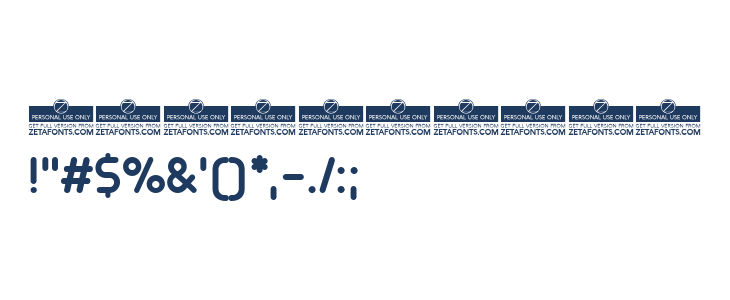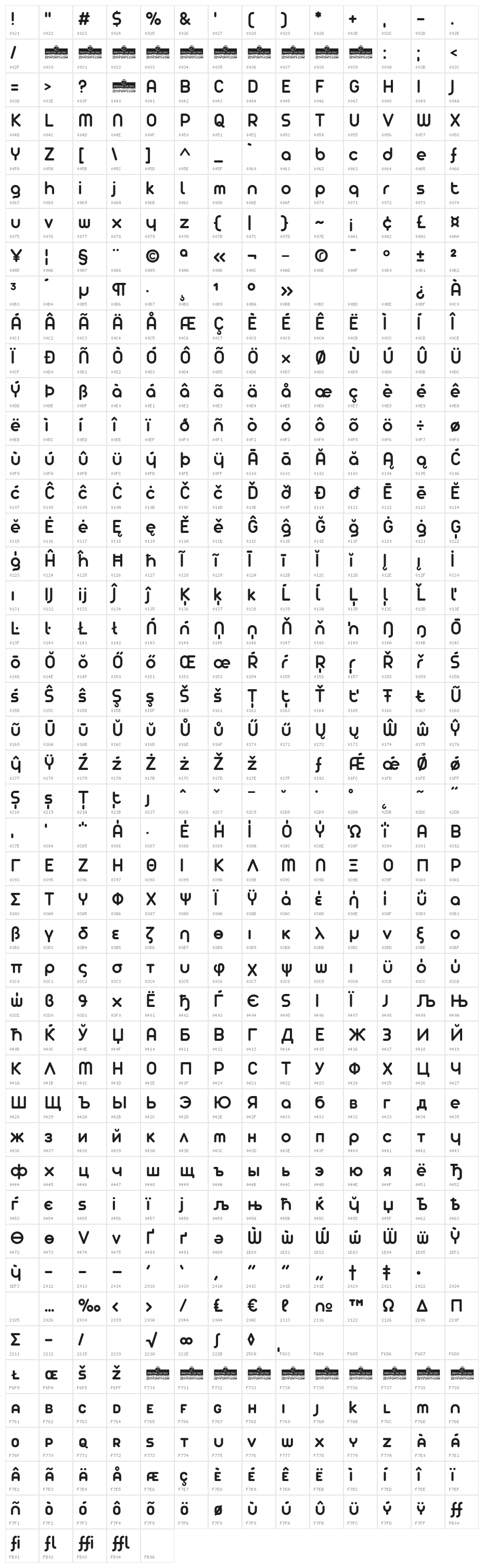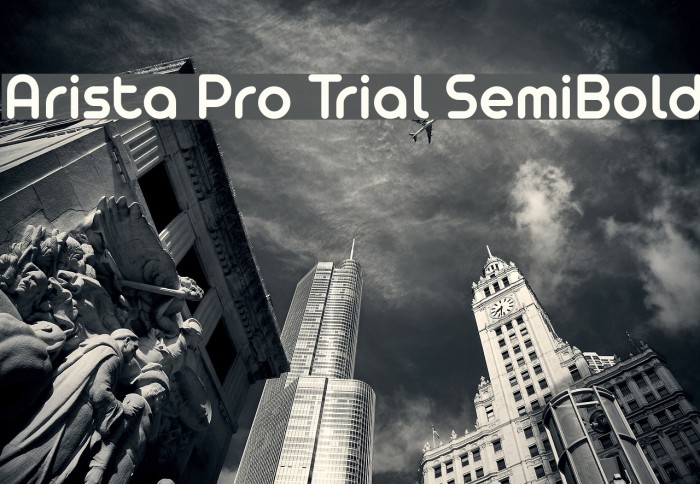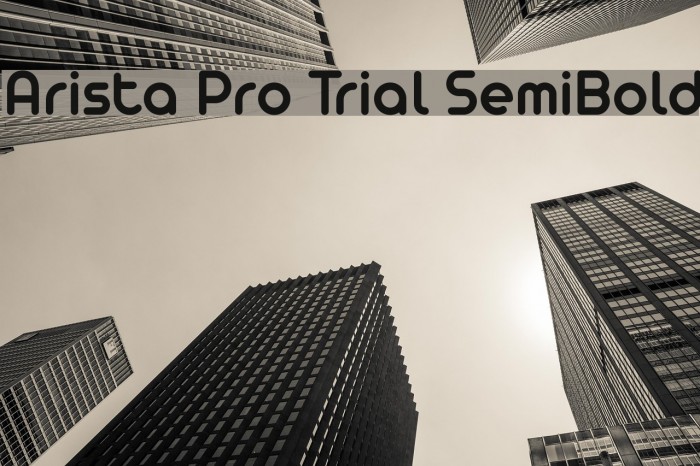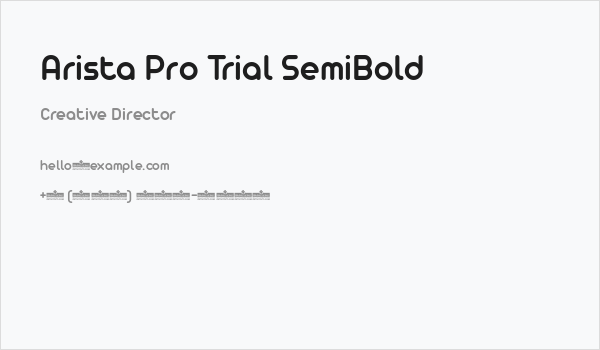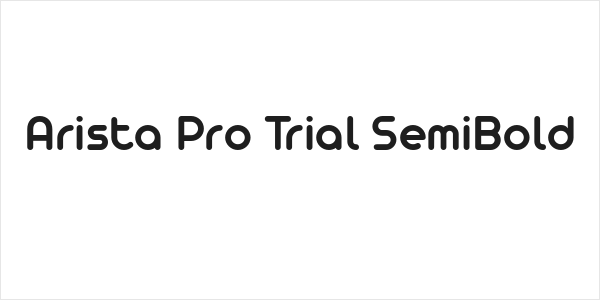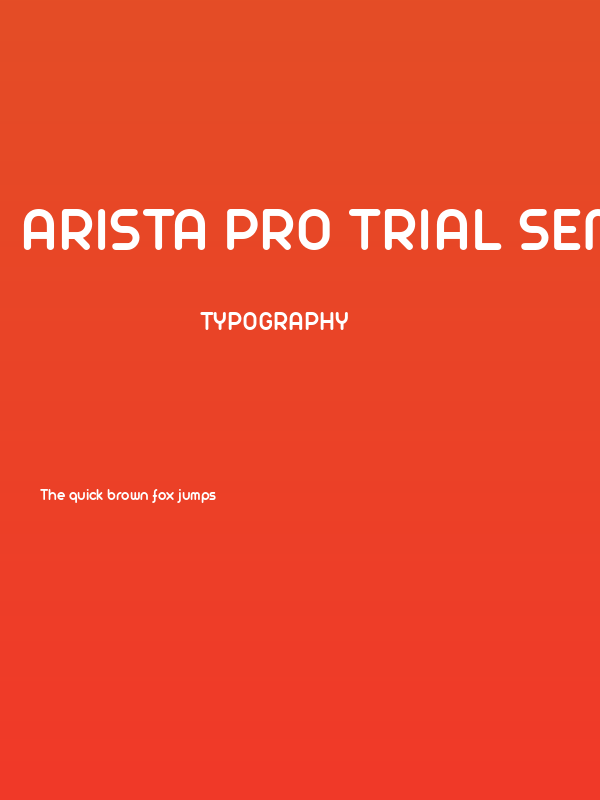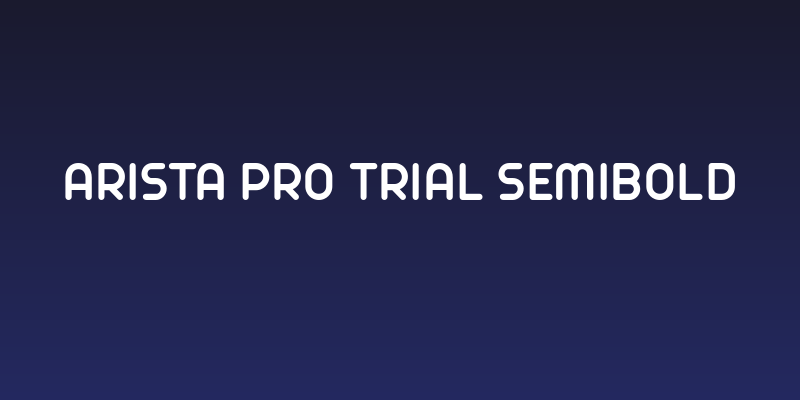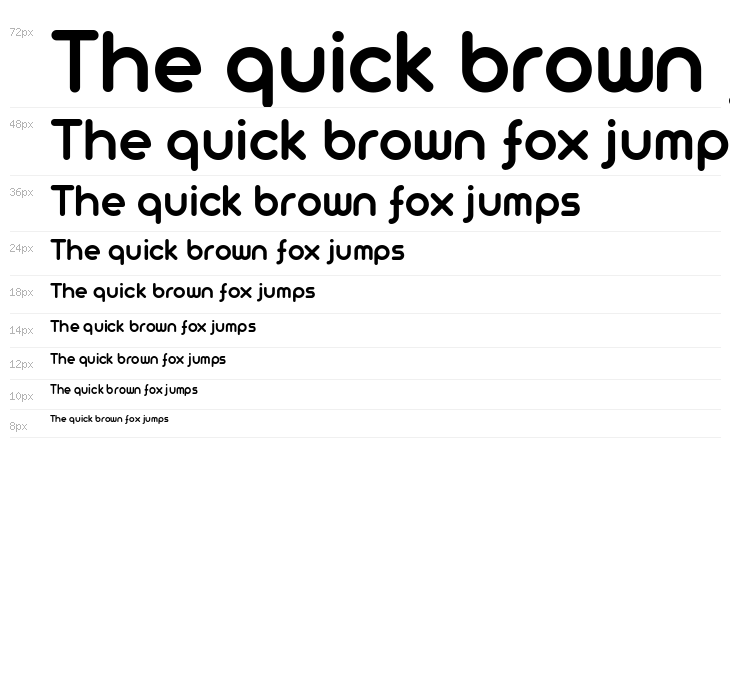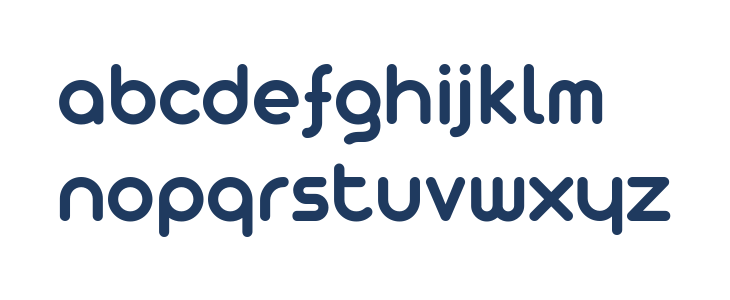
Arista Pro Trial SemiBold Font
Arista Pro Trial SemiBold Description
This font features a clean, rounded sans-serif style with a modern and friendly appearance. The characters are bold and uniform, with consistent stroke widths that give it a cohesive look. The rounded edges soften the overall feel, making it approachable and versatile. The uppercase and lowercase letters maintain a balanced proportion, while the numerals and special characters are clearly defined and easy to read. This font is suitable for a variety of applications, from digital interfaces to print media, due to its legibility and contemporary aesthetic.
| Use Case | Headlines, Logos, Digital Interfaces |
| Proposed Projects | Ideal for branding, user interfaces, signage, and advertising materials. |